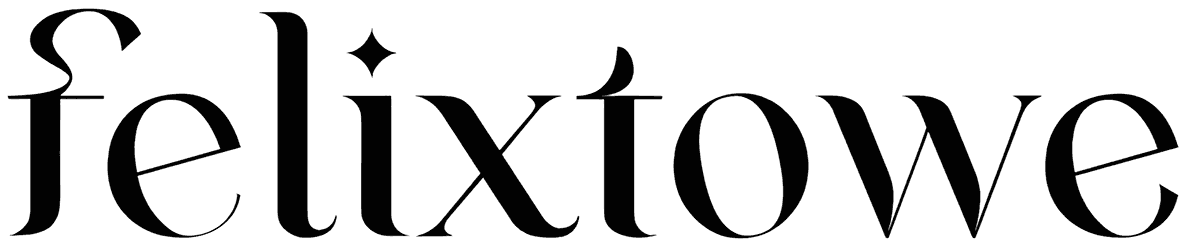
Felixtowe Font
Meet Felixtowe, a luxury serif font with a flexible design that sets it distinct while maintaining a classic look. This deluxe font consists of two versions and can be harmonized with a great number of subjects. Screen it on your coming designs, such as logotypes, ads, covers, or more of the same, and be unique.